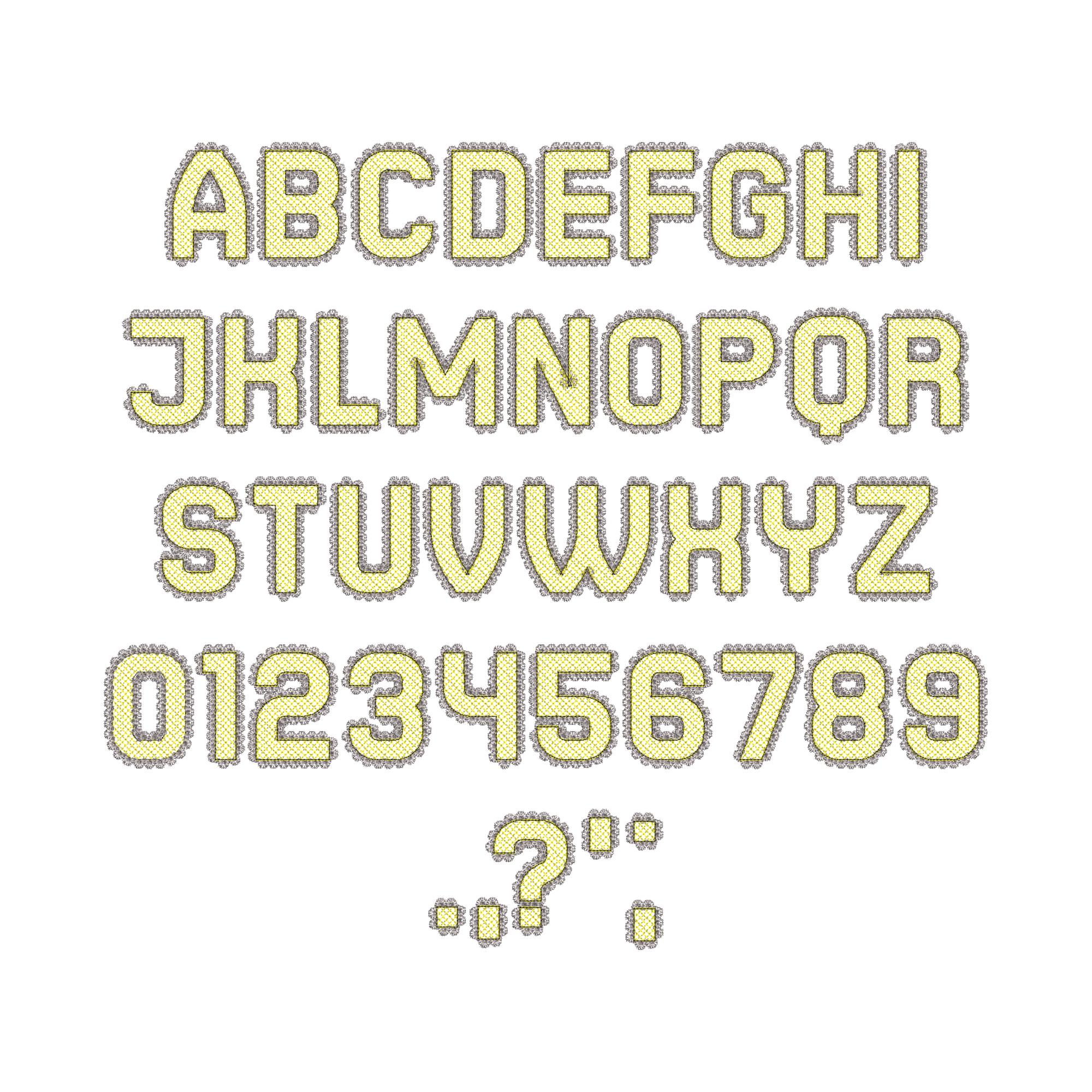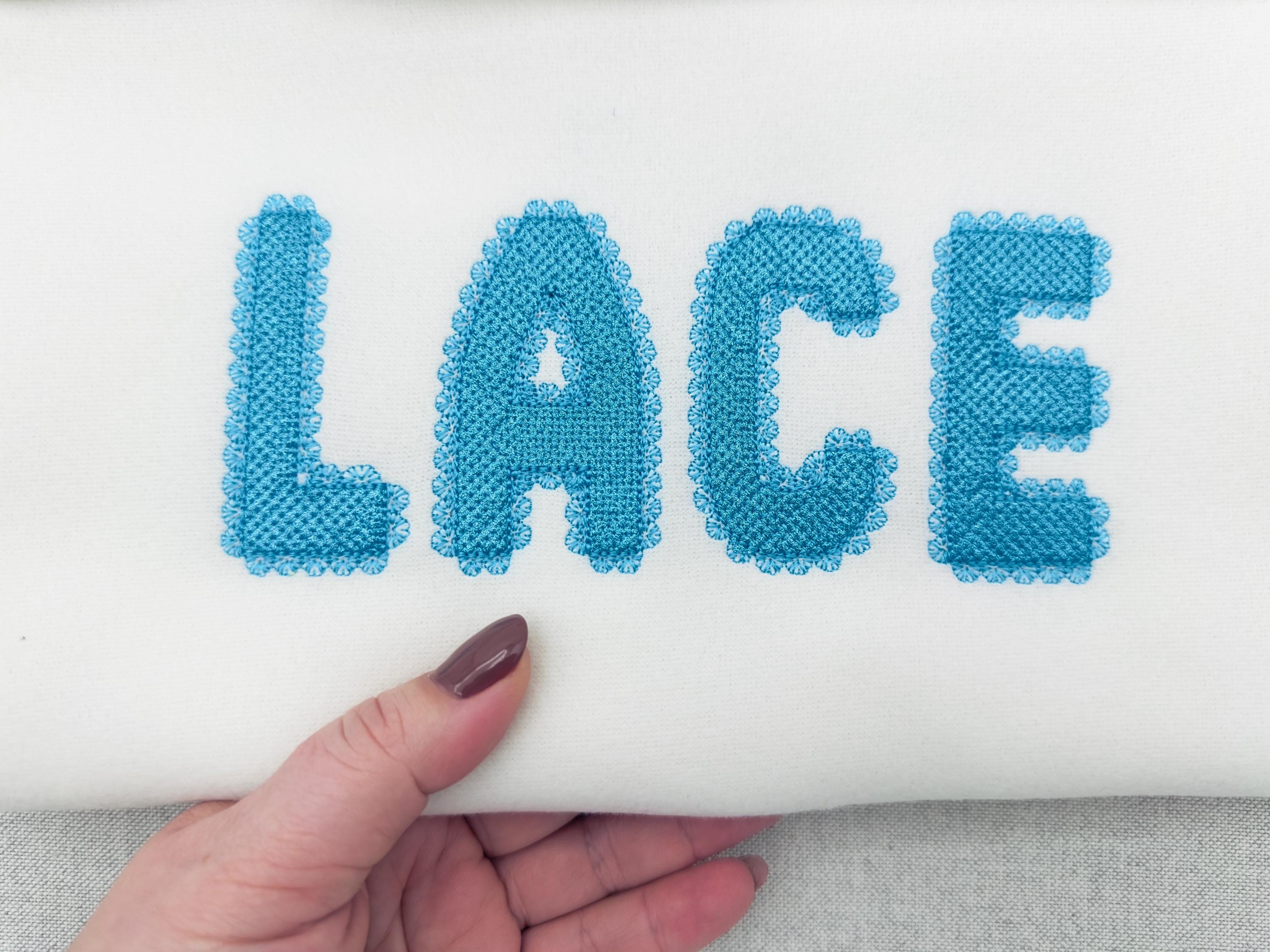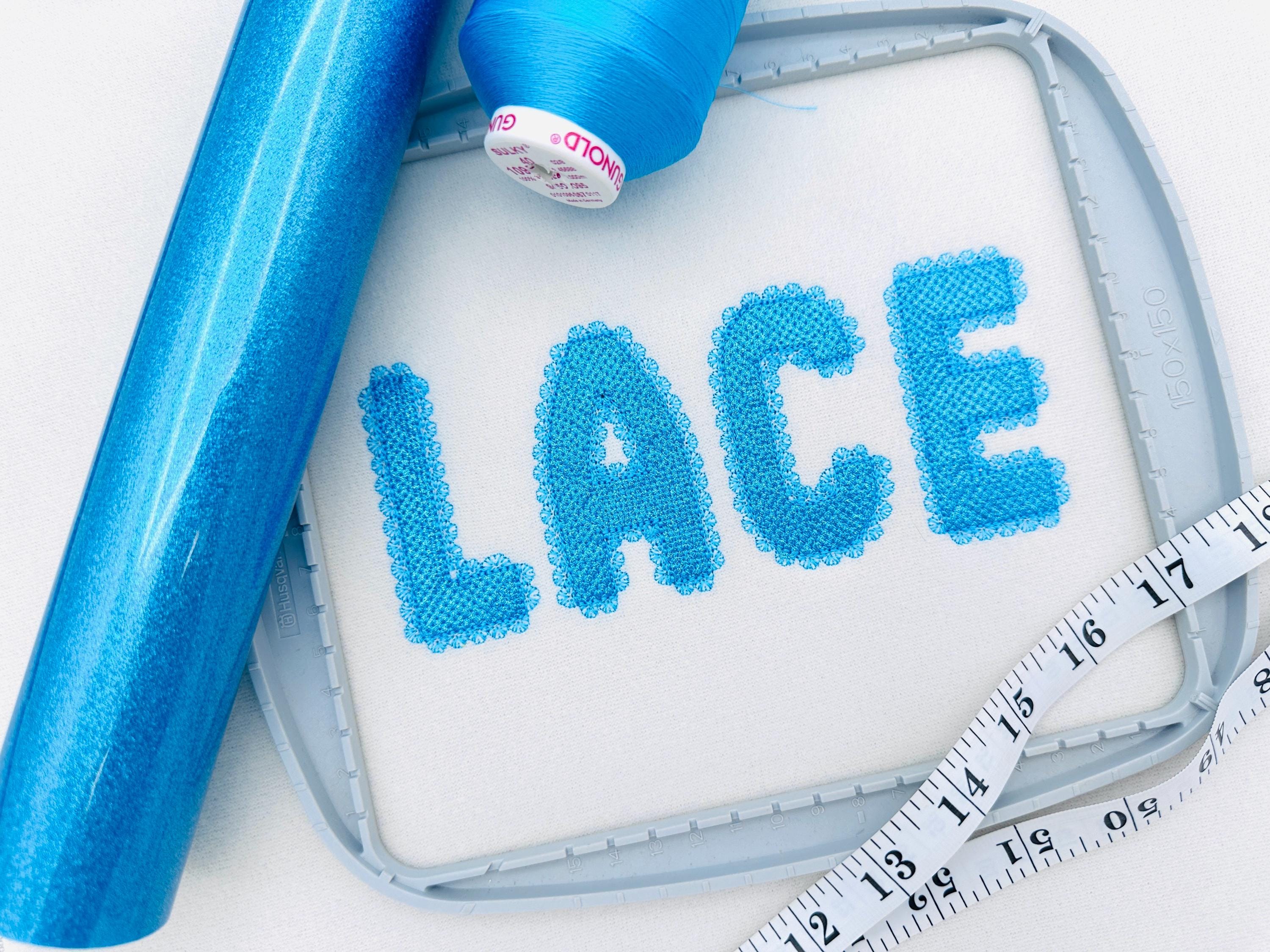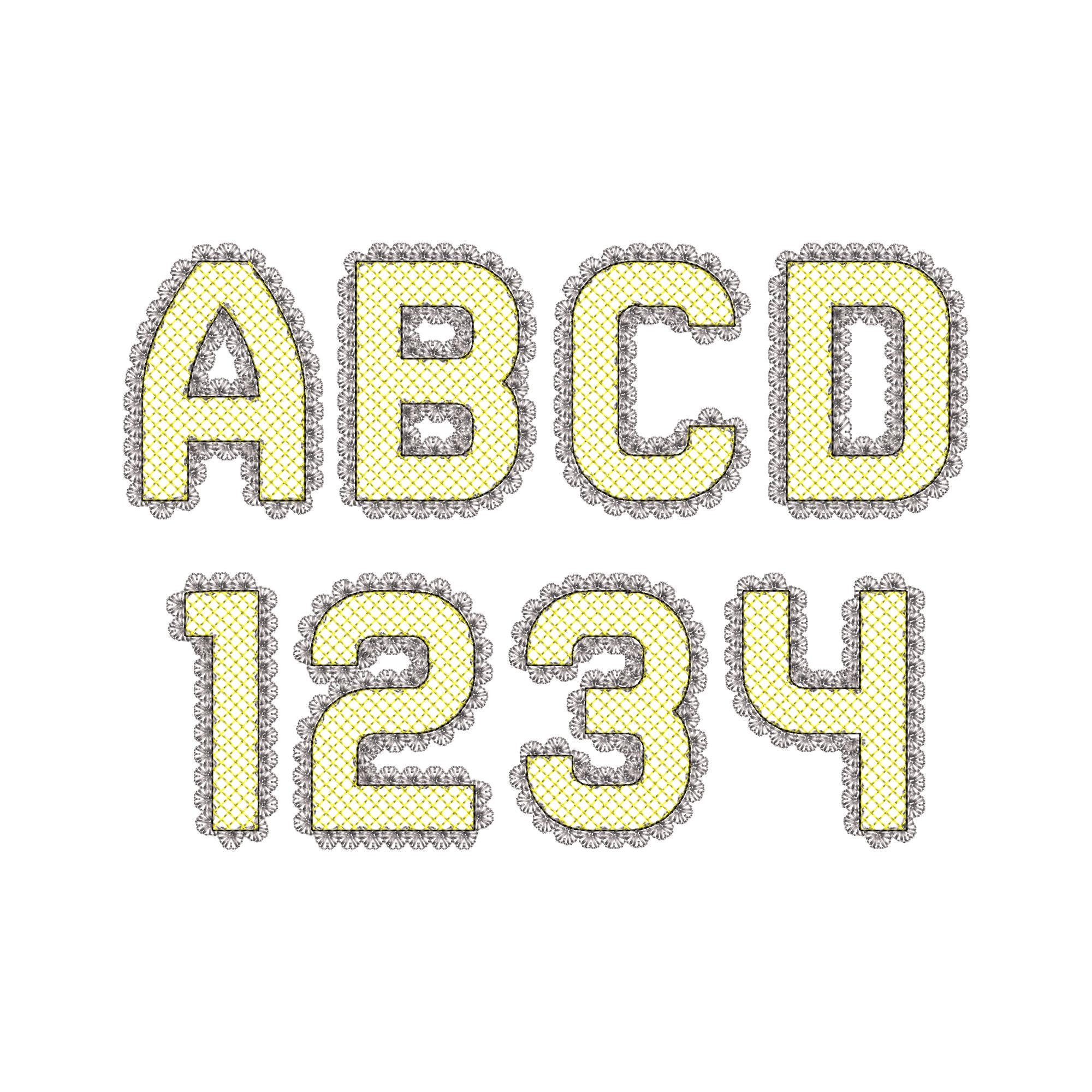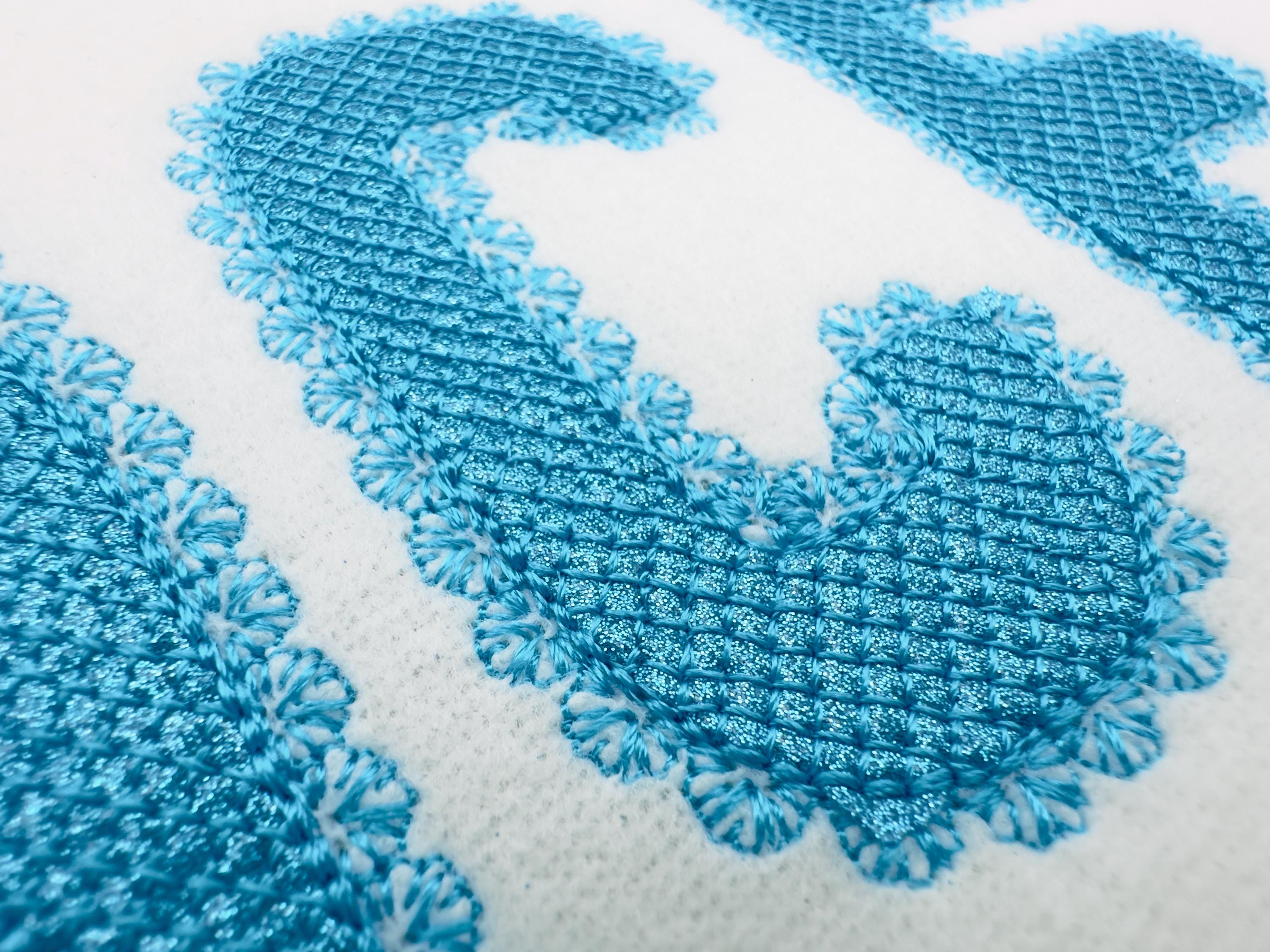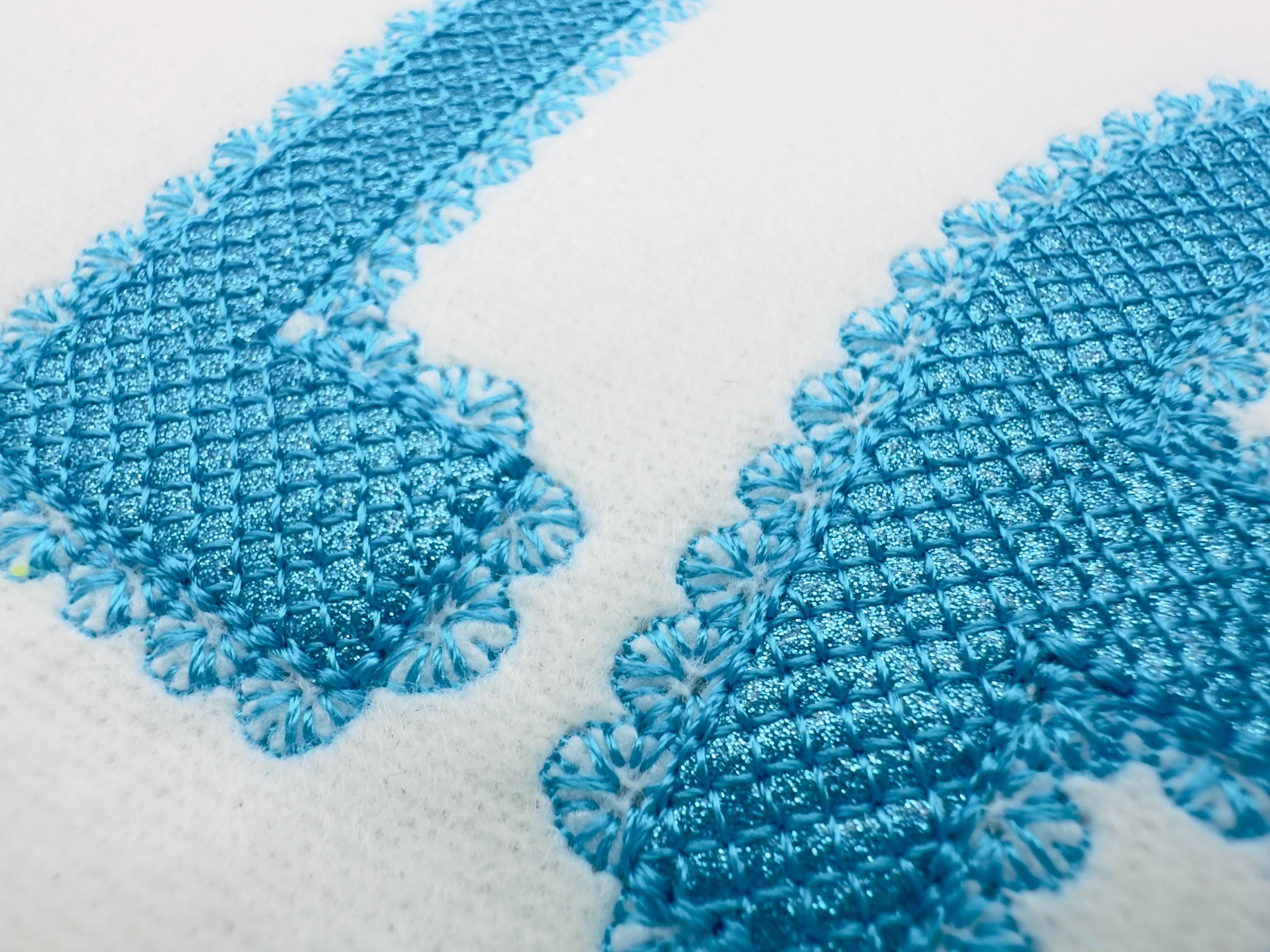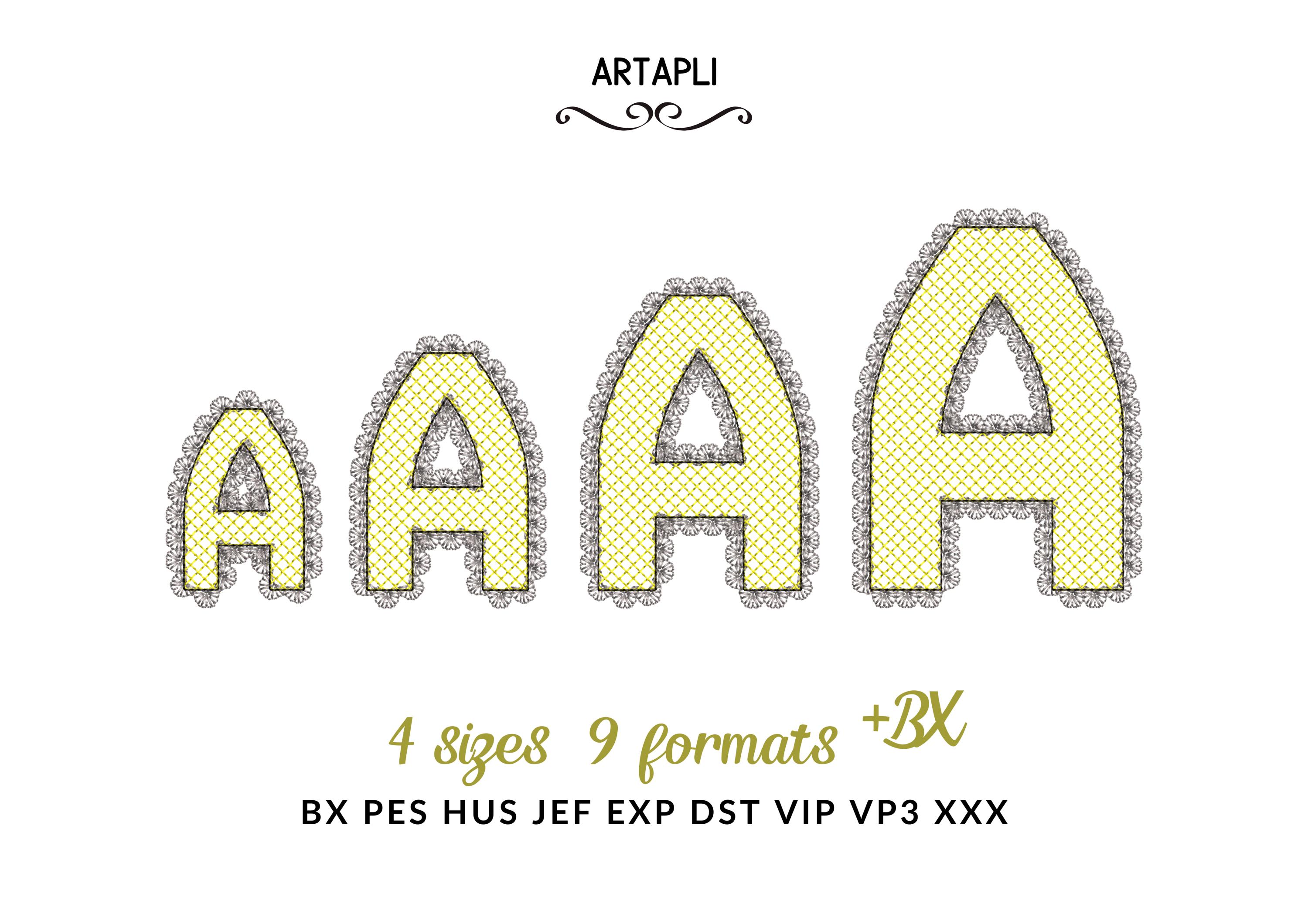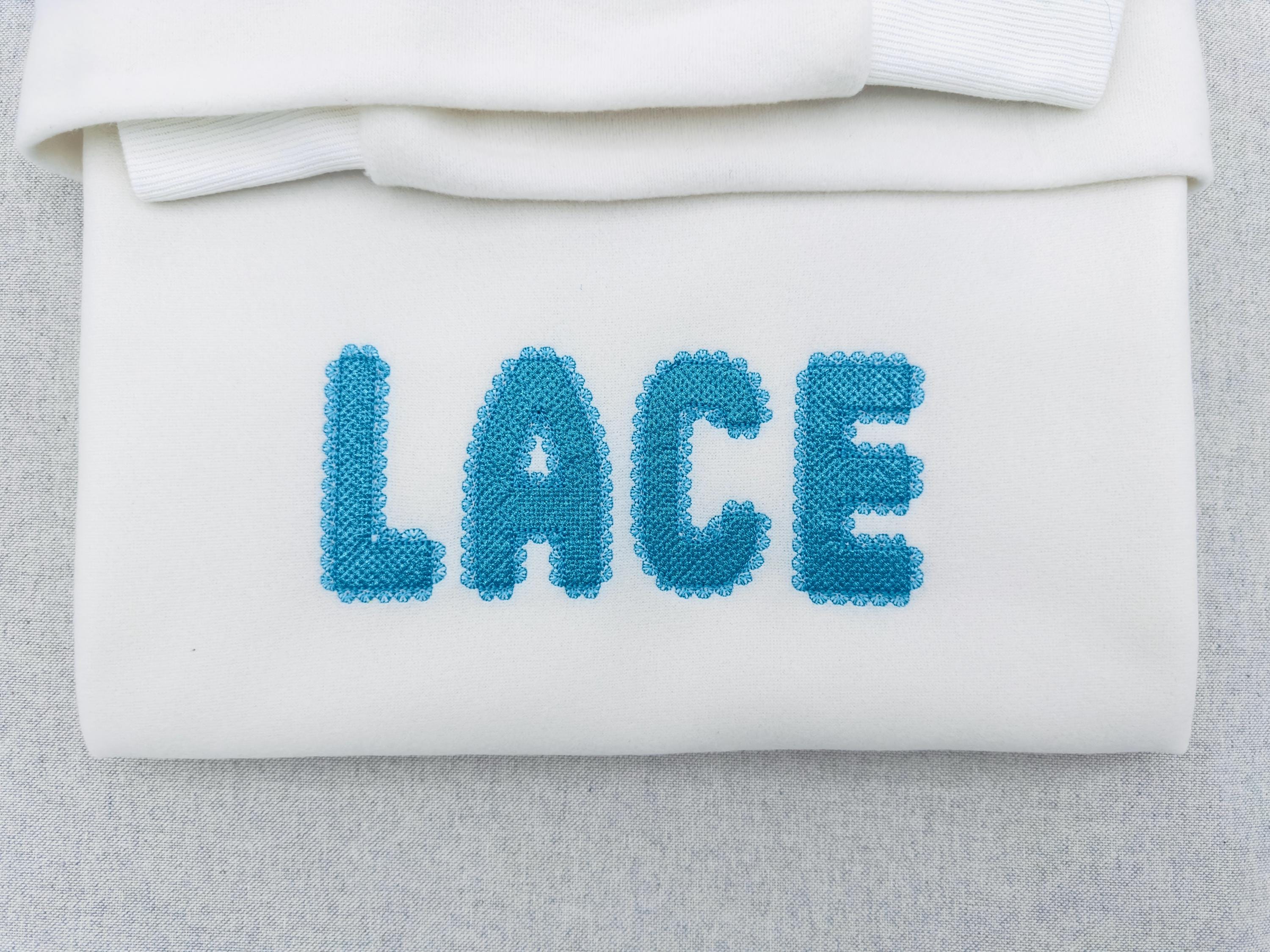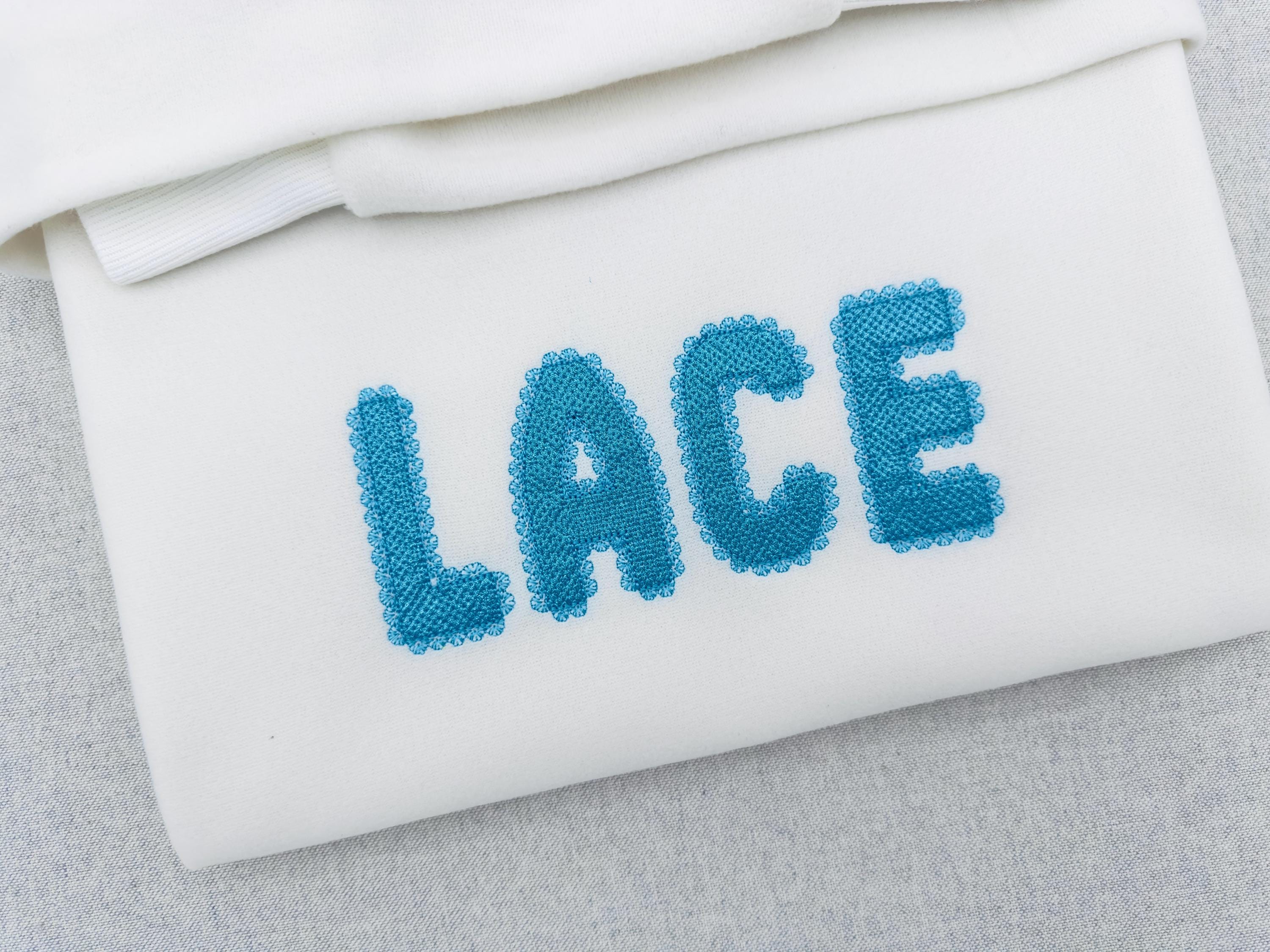
Lace Edge FONT HTV glitter vinyl layer applique Alphabet Monogram sparkle girls letters machine embroidery designs sizes 2 up to 3.8 inch, BX
Entire alphabet uppercase letters A-Z, numbers 0-9, and punctuation.
Use HTV glitter vinyl with this font. It’s quick and easy to apply and creates a stunning effect.
Once the design is complete, heat press or iron the HTV glitter to secure it. The finished design is wash-safe.
Lace edge is a part of the design. The background fabric looks through. Stunning effect!
I love how it stitched out but the K looks just like the H. I don't want to try any of the other letters unless it can be resolved. I've reached out but haven't gotten a response.